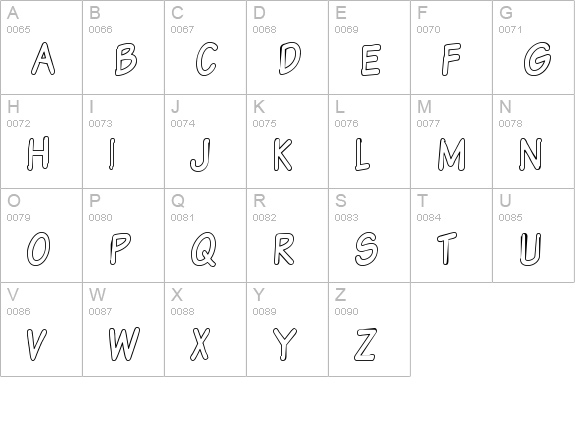
VTCSundayKomixTallOutline font is a playful and lively typeface that adds a touch of whimsy to any design project. With its tall and thin letterforms, this font exudes a sense of fun and creativity. The outline style adds an extra layer of visual interest, making it perfect for headlines, titles, and logos. What makes VTCSundayKomixTallOutline font even more appealing is that it is available for free. You can easily download this font at FontsMarket.com, a reputable website known for its extensive collection of high-quality fonts. Whether you are a graphic designer, a blogger, or simply someone looking to add a unique flair to your personal projects, this font is a great choice. The versatility of VTCSundayKomixTallOutline font allows it to be used in a variety of contexts. Its bold and eye-catching appearance makes it ideal for comic book-inspired designs, while its playful nature lends itself well to children's books, posters, and invitations. Additionally, its legibility ensures that your message will be easily conveyed to your audience. This font is designed with attention to detail, ensuring that each character is carefully crafted and visually appealing. The combination of thin strokes and outlined forms creates a striking visual contrast that will make your text stand out. Whether you use it for print or digital designs, VTCSundayKomixTallOutline font will add a touch of personality and charm to your projects. Don't miss out on the opportunity to enhance your designs with this delightful font. Download VTCSundayKomixTallOutline font for free at FontsMarket.com and let your creativity soar. Whether you are working on a professional project or simply want to add a playful touch to your personal creations, this font is a must-have. Explore the endless possibilities that this font offers and let your imagination run wild.